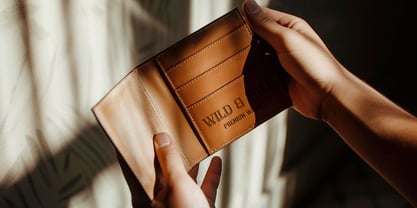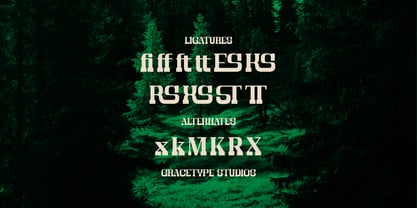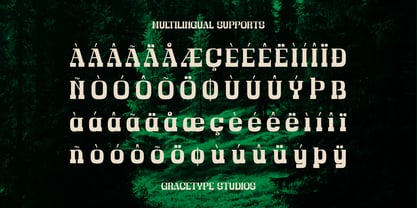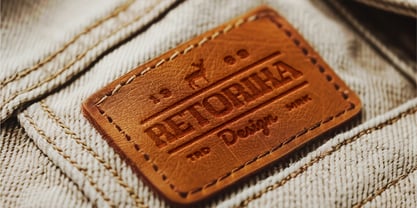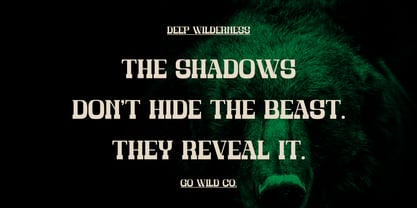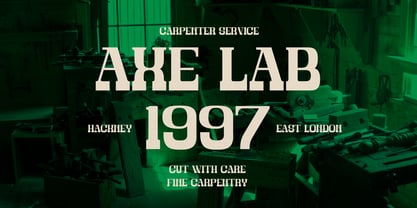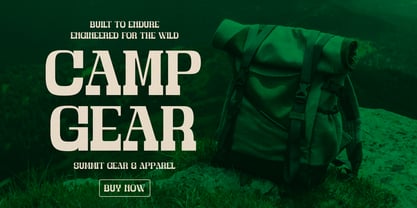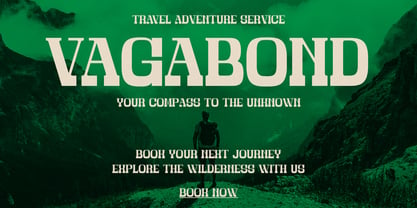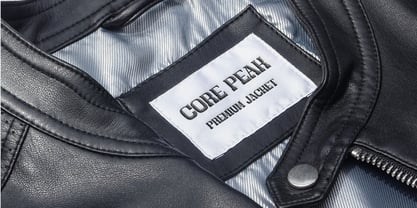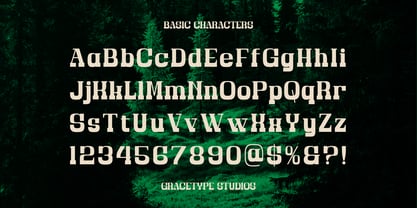
Bravo Amori
La famille de polices Bravo Amori et publiée par Tini Fitriani. Bravo Amori contient 2 styles et options de package familial. En savoir plus sur cette famille
Bravo Amori | Display Slab Serif, from Gracetypestudio, suitable for any projects such as: logos, branding projects, homeware designs, product packaging, mugs, quotes, posters, shopping bags, t-shirts, book covers, name card, invitation cards, greeting cards, label, photography, watermark, special events, and all your other lovely projects that need a Calligraphy taste.